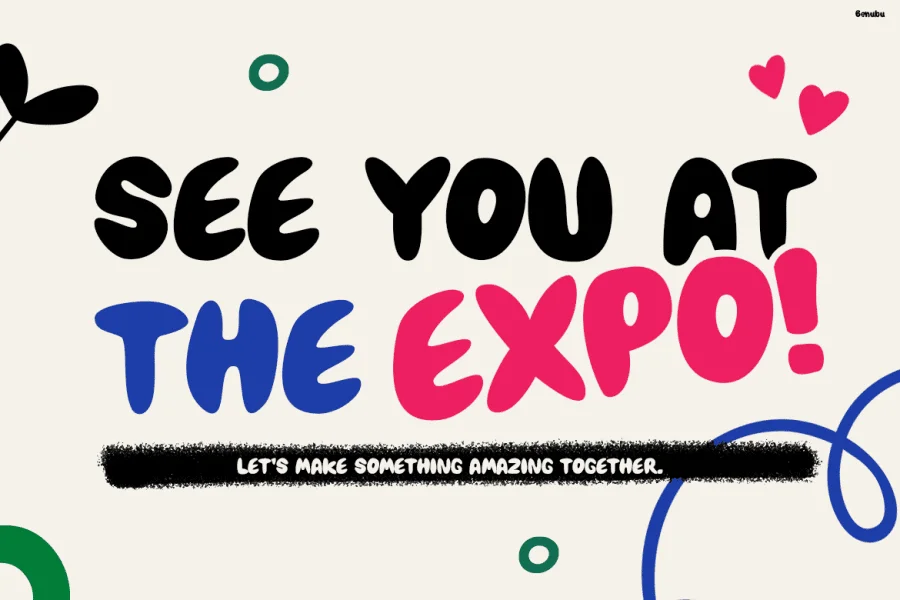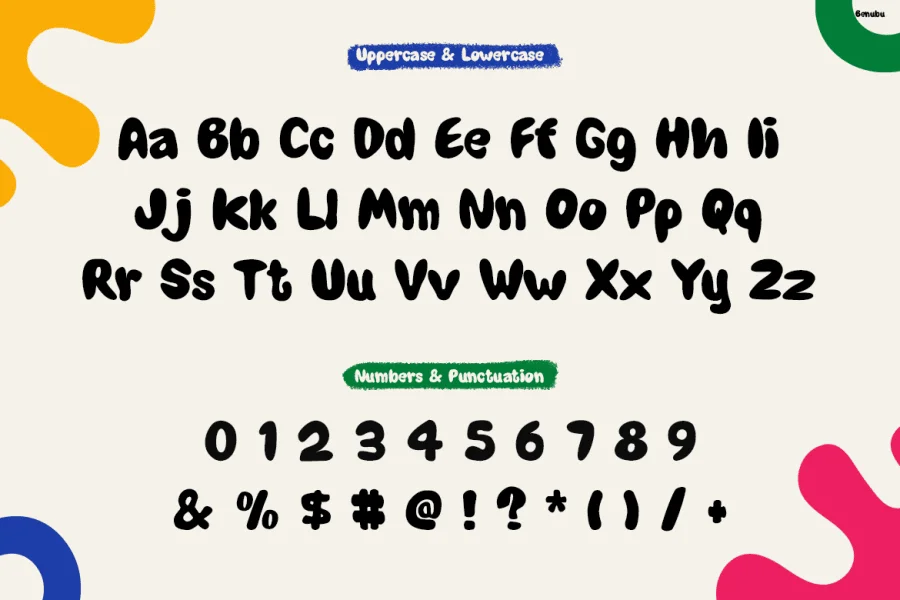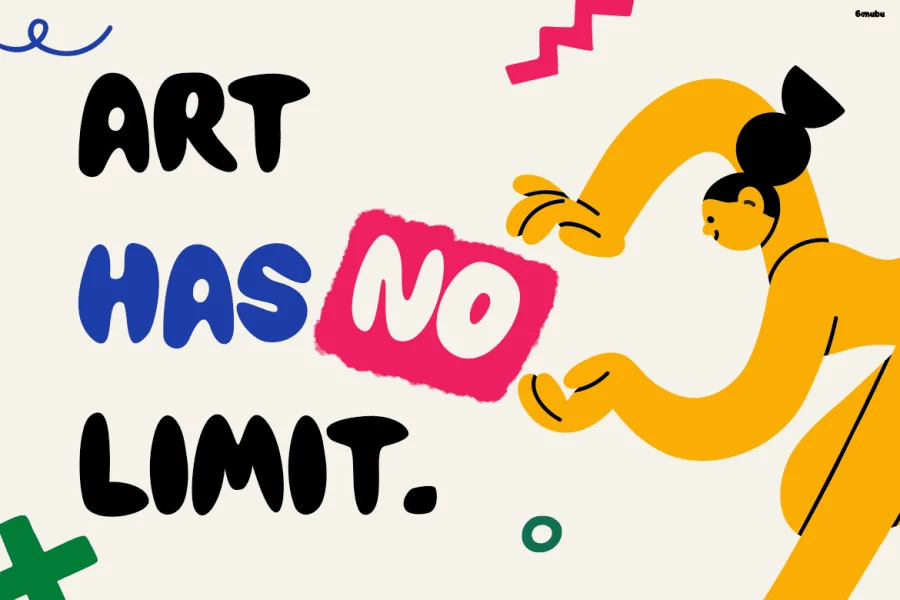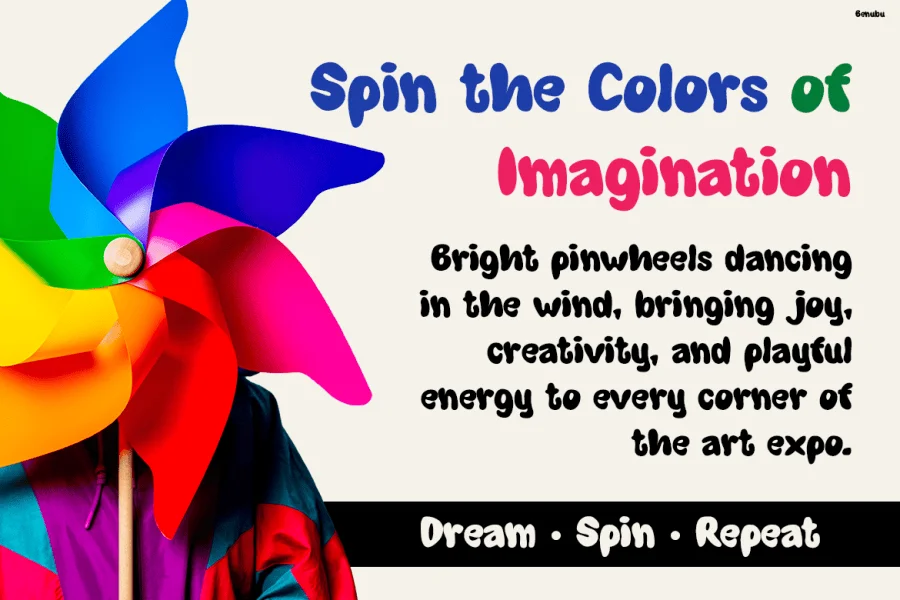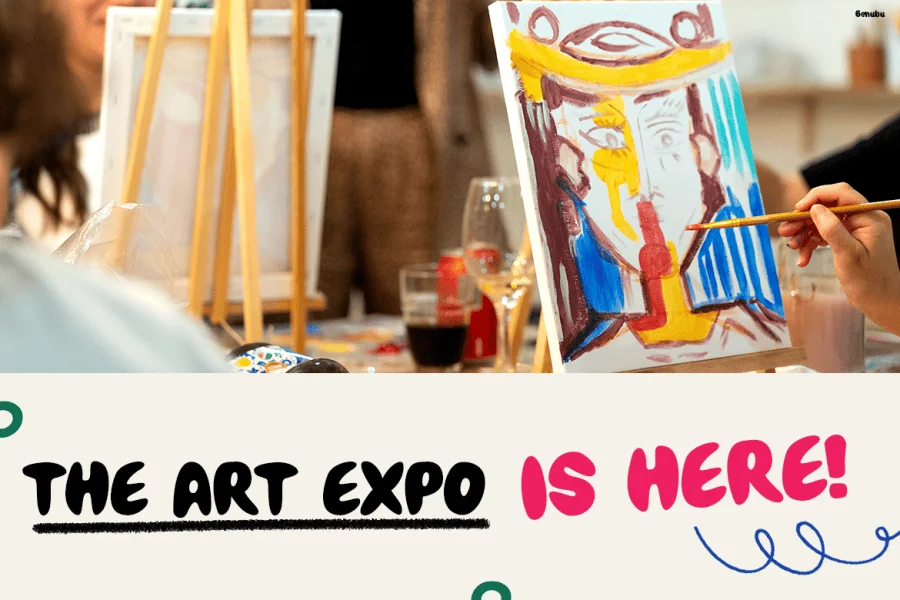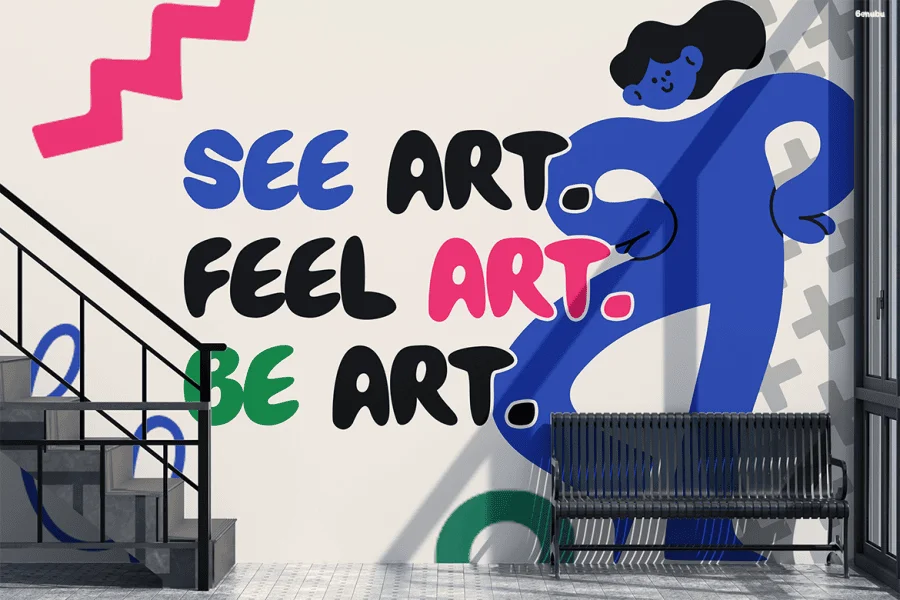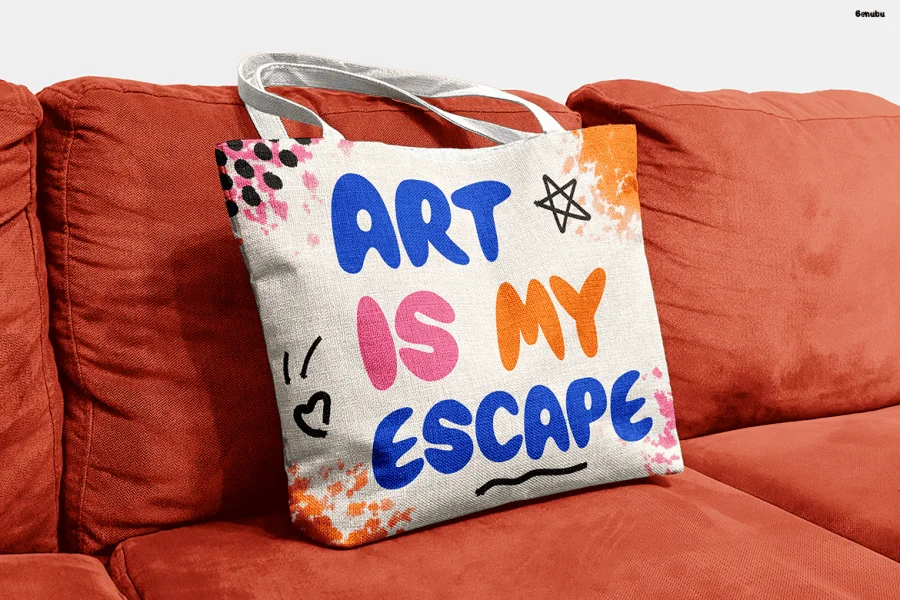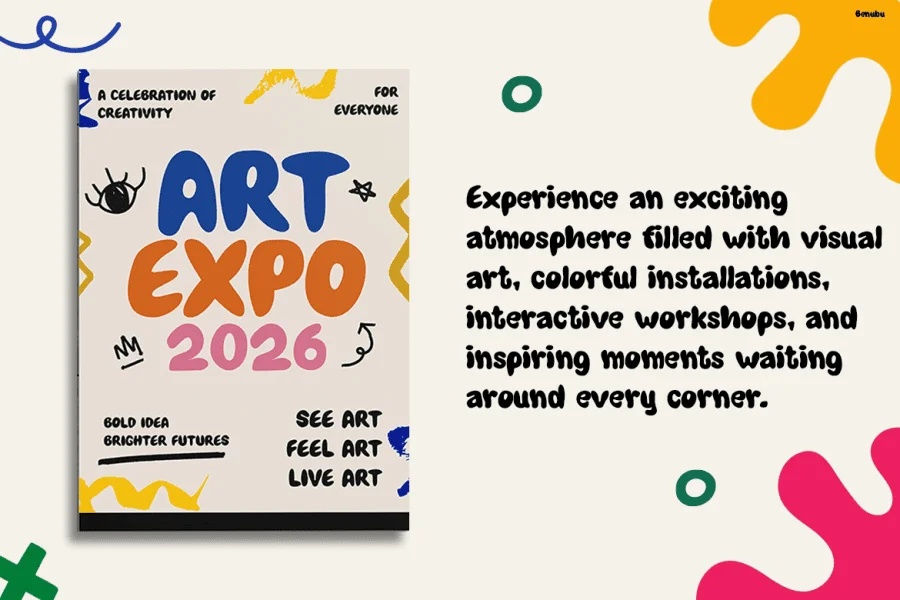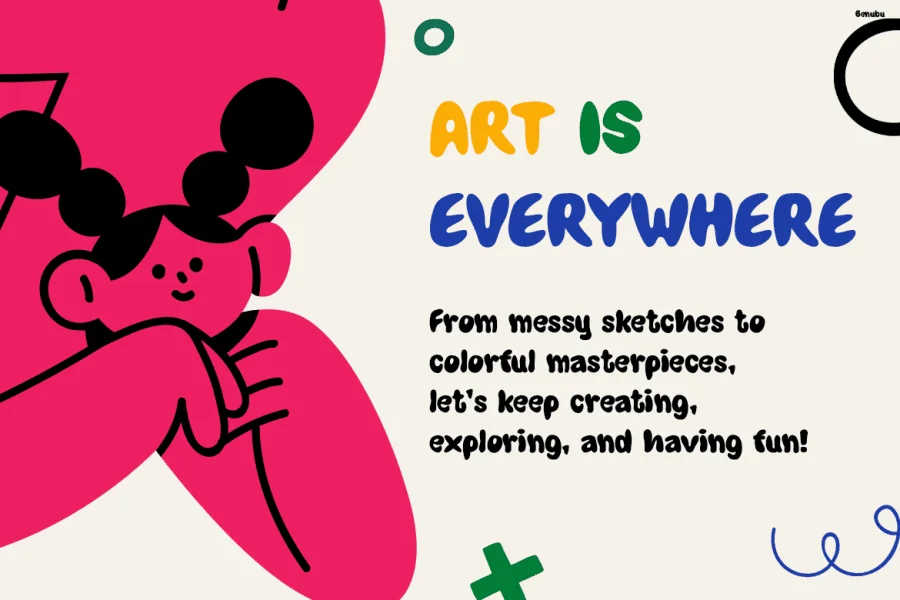
Benubu is a playful, heavy-weight display sans-serif with a soft, hand-drawn character reminiscent of fluid paintbrush strokes. Defined by its ultra-thick, rounded strokes and low-contrast structure, this typeface exudes a friendly, approachable warmth. Its letterforms are plump and organic, featuring blunt, pillowy terminals and soft, curved counters that give each character a bulbous, balloon-like quality. The overall rhythm is casual and organic, with slightly irregular heights and widths that mimic spontaneous, hand-painted lettering.
This typeface is perfectly suited for creative, art-focused environments where expressive personality is paramount. It excels in art exhibition branding, gallery event promotions, creative workshop materials, and casual merchandise like tote bags and apparel. Its bold presence makes it highly effective for short headlines, posters, and colorful exhibition graphics, especially when paired with vibrant color palettes and artistic illustrations.